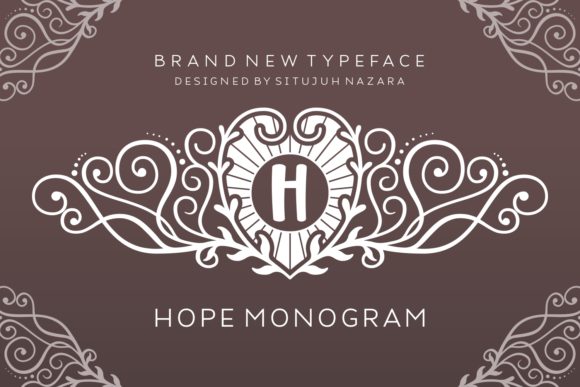
Hope Monogram Font
Introducing Hope Monogram Font, a decorative masterpiece that will add a touch of elegance and individuality to your creative projects. Allow your words to dance upon the page in a captivating and alluring fashion, leaving an unforgettable impression on all who behold them.
Imagine your designs imbued with a charming and whimsical aura, as if whispered into existence by the muses themselves. Hope Monogram Font's casual style invites you to embrace your playful side, enchanting your audience with its captivating curves and intricate details.
Effortlessly create stunning monograms that radiate sophistication and flair. Whether you're crafting personalized stationery, designing unforgettable logos, or adding a touch of allure to your social media posts, Hope Monogram Font is the perfect choice.
Immerse yourself in a world of creativity, where your imagination knows no bounds. Let Hope Monogram Font be your guiding light, illuminating your path towards captivating designs that will leave a lasting legacy.
Embrace the limitless possibilities that await you with Hope Monogram Font, the key to unlocking the extraordinary in your creative endeavors. Indulge in its beauty, lose yourself in its charm, and let your imagination soar.